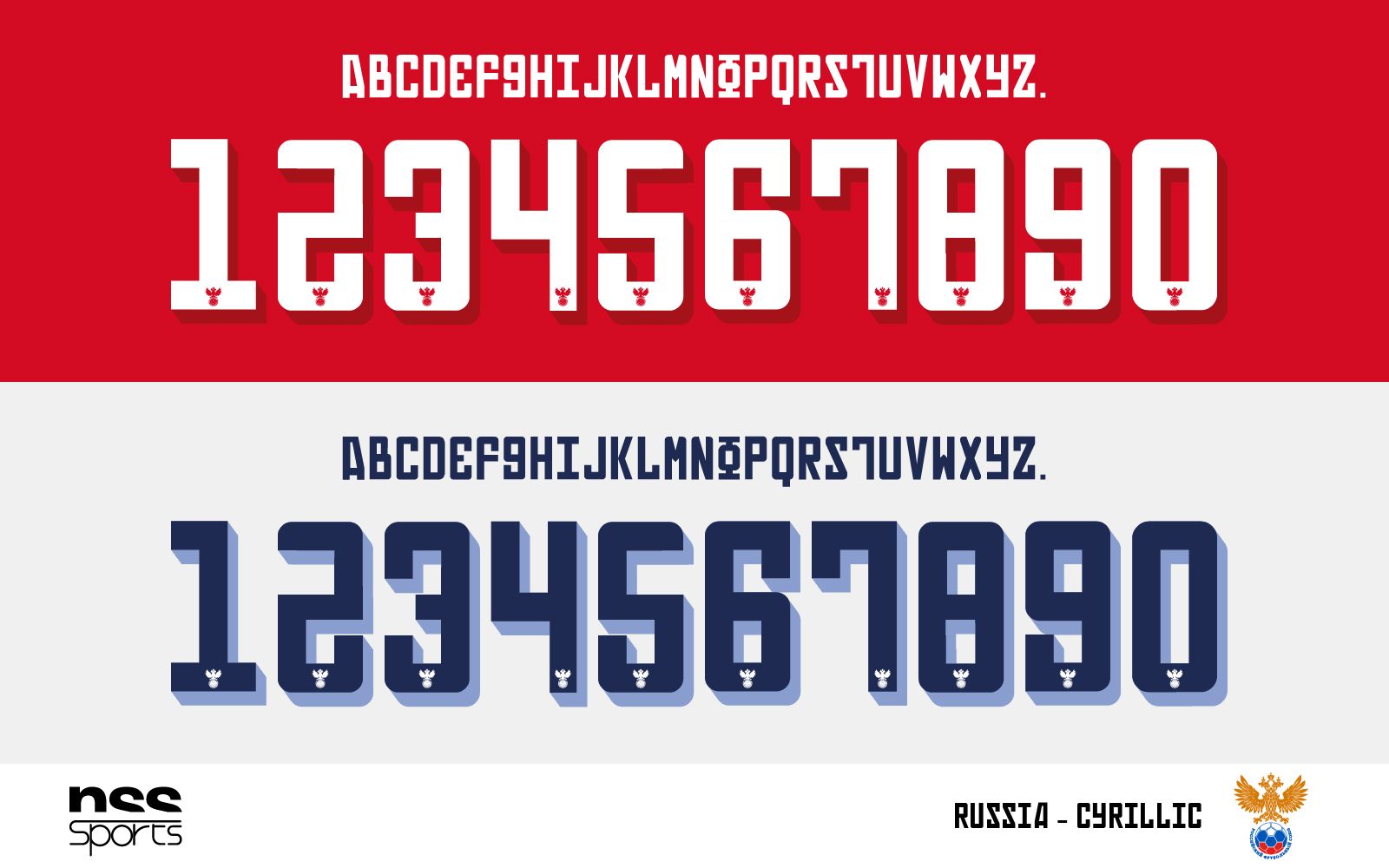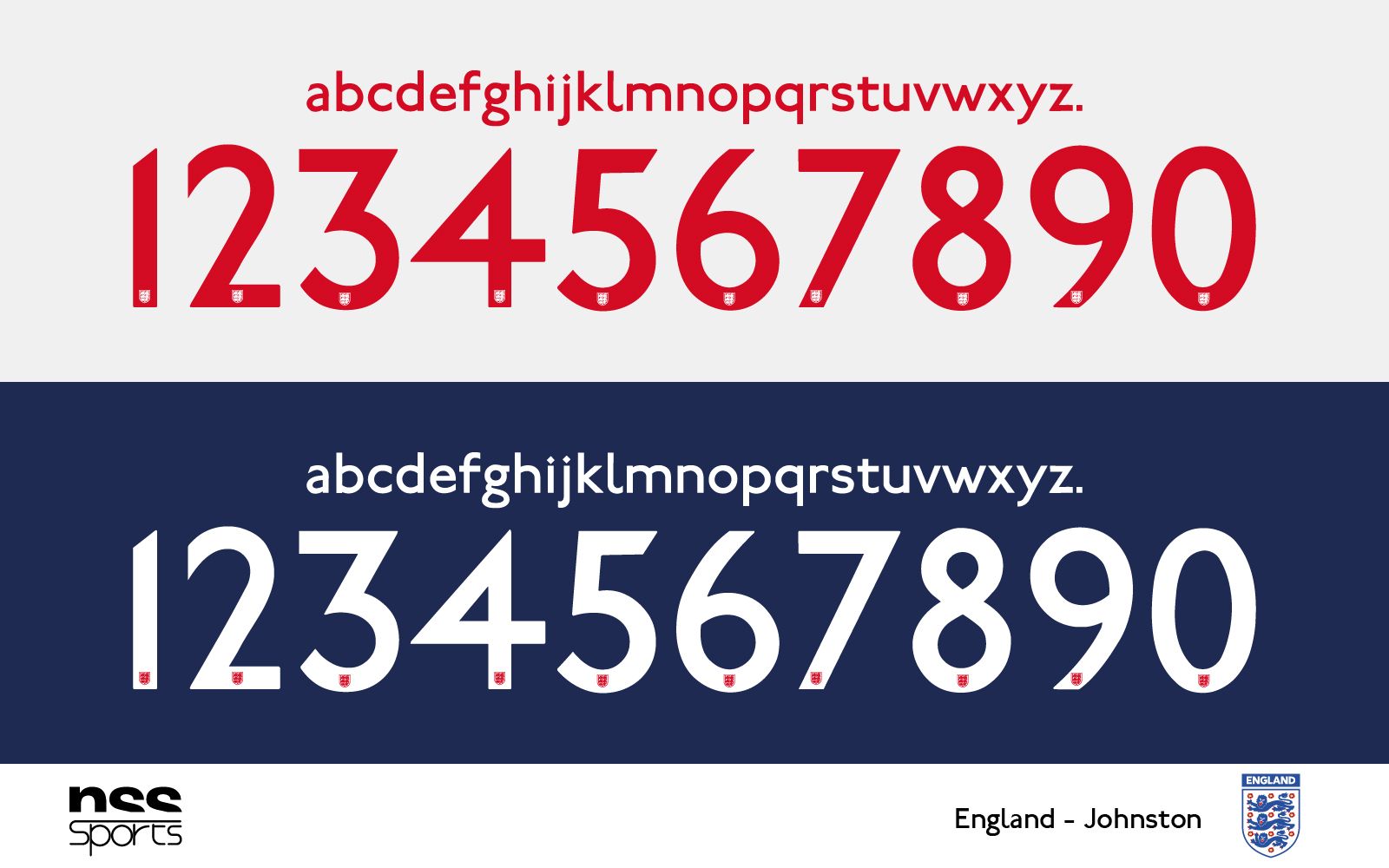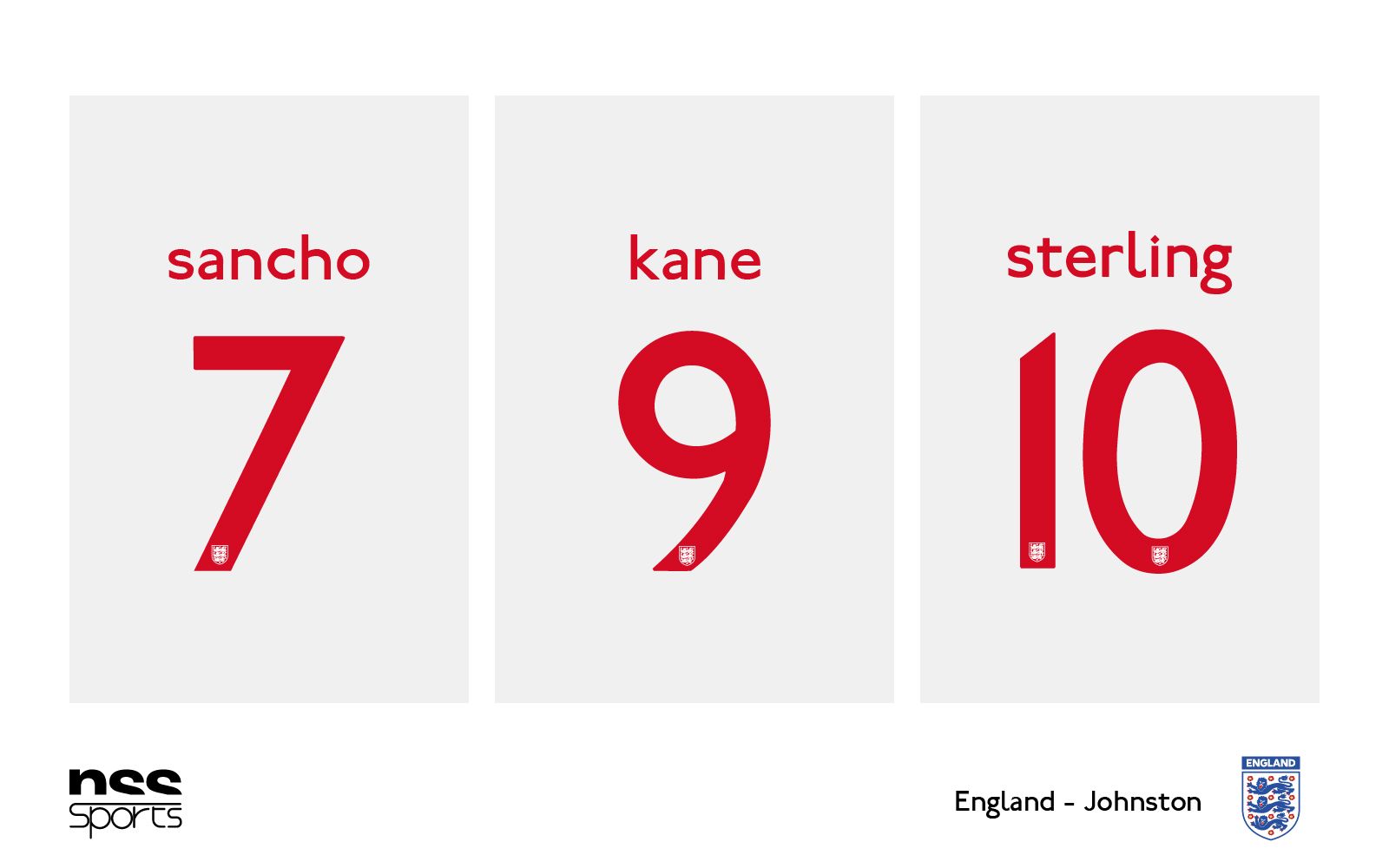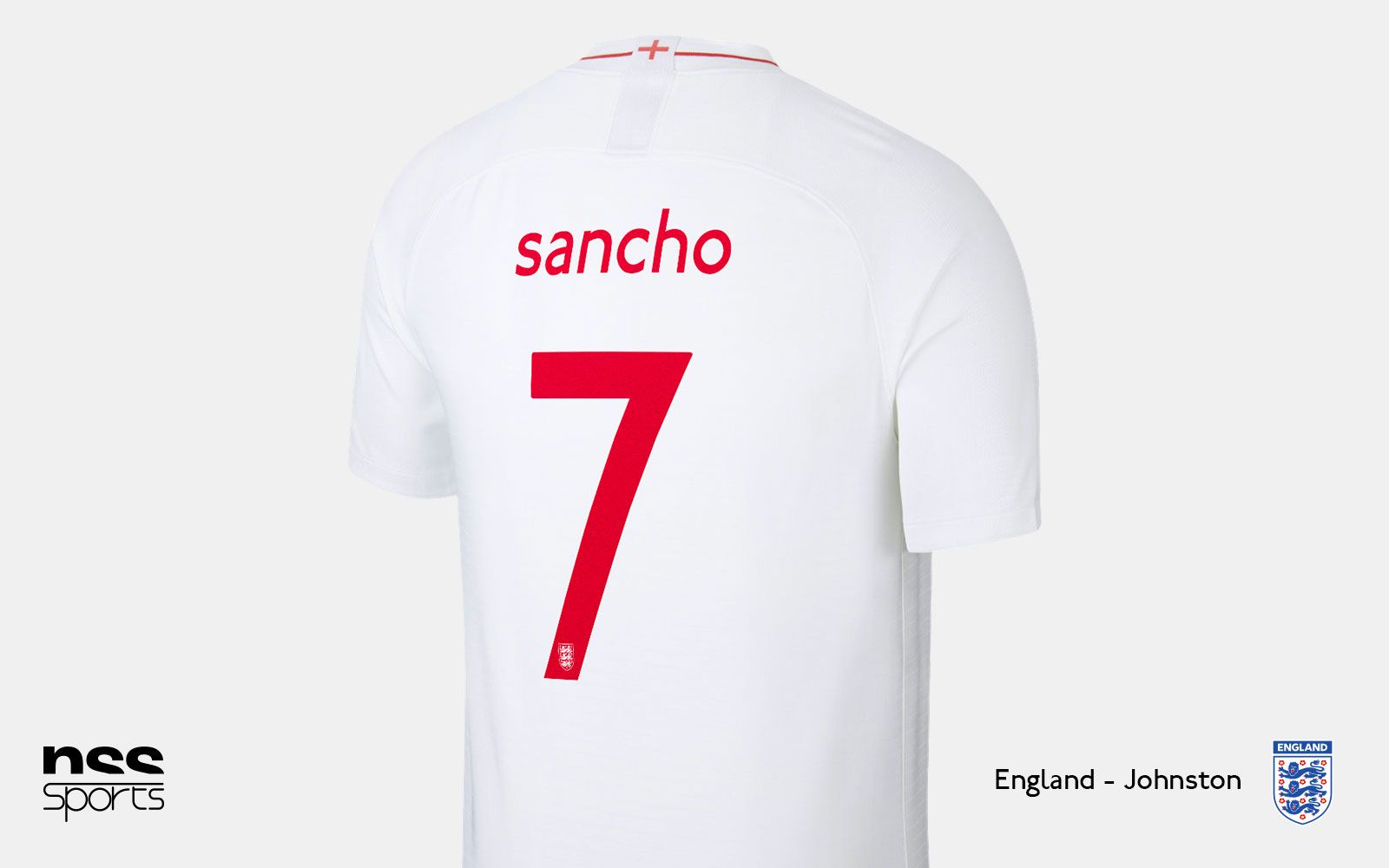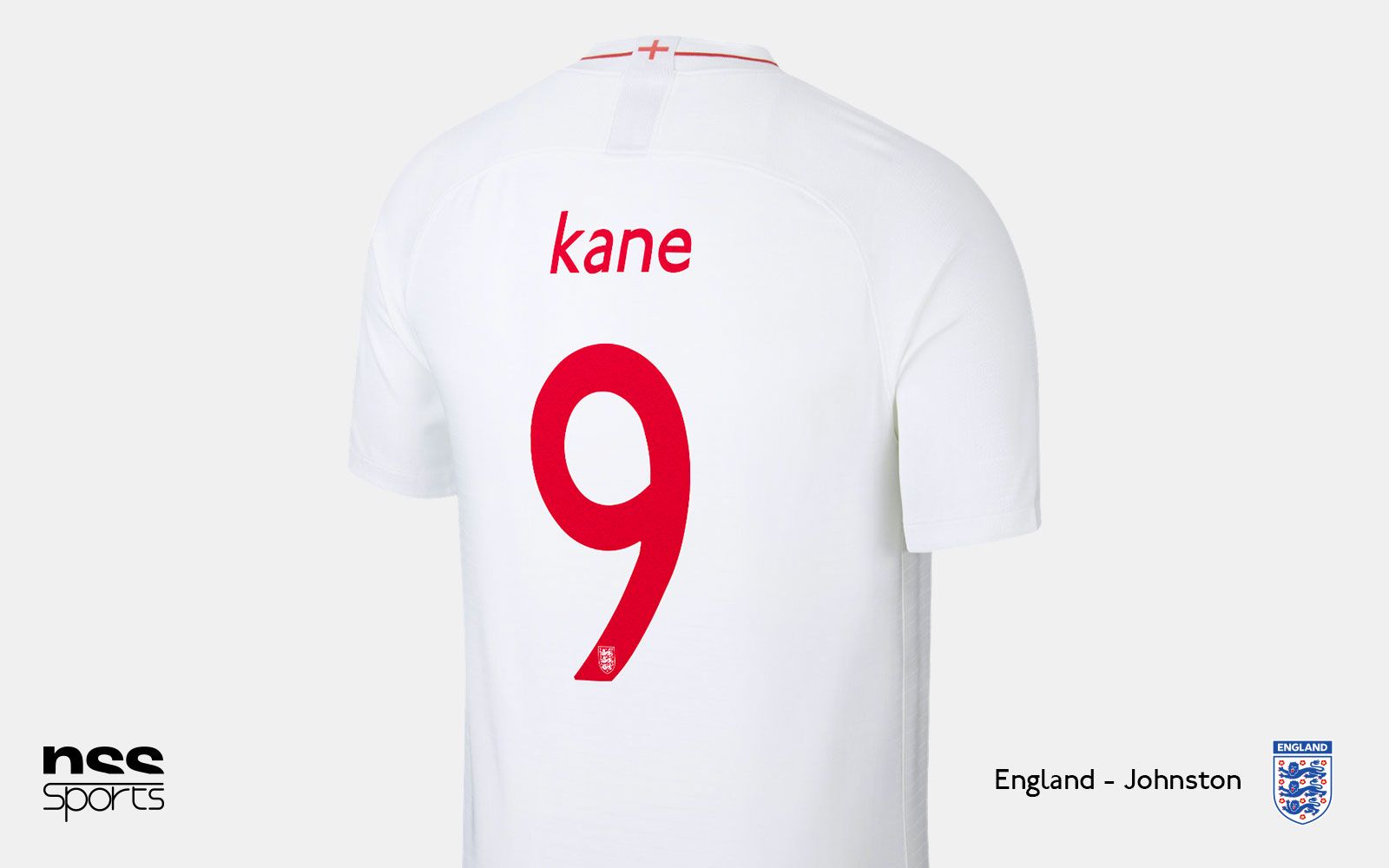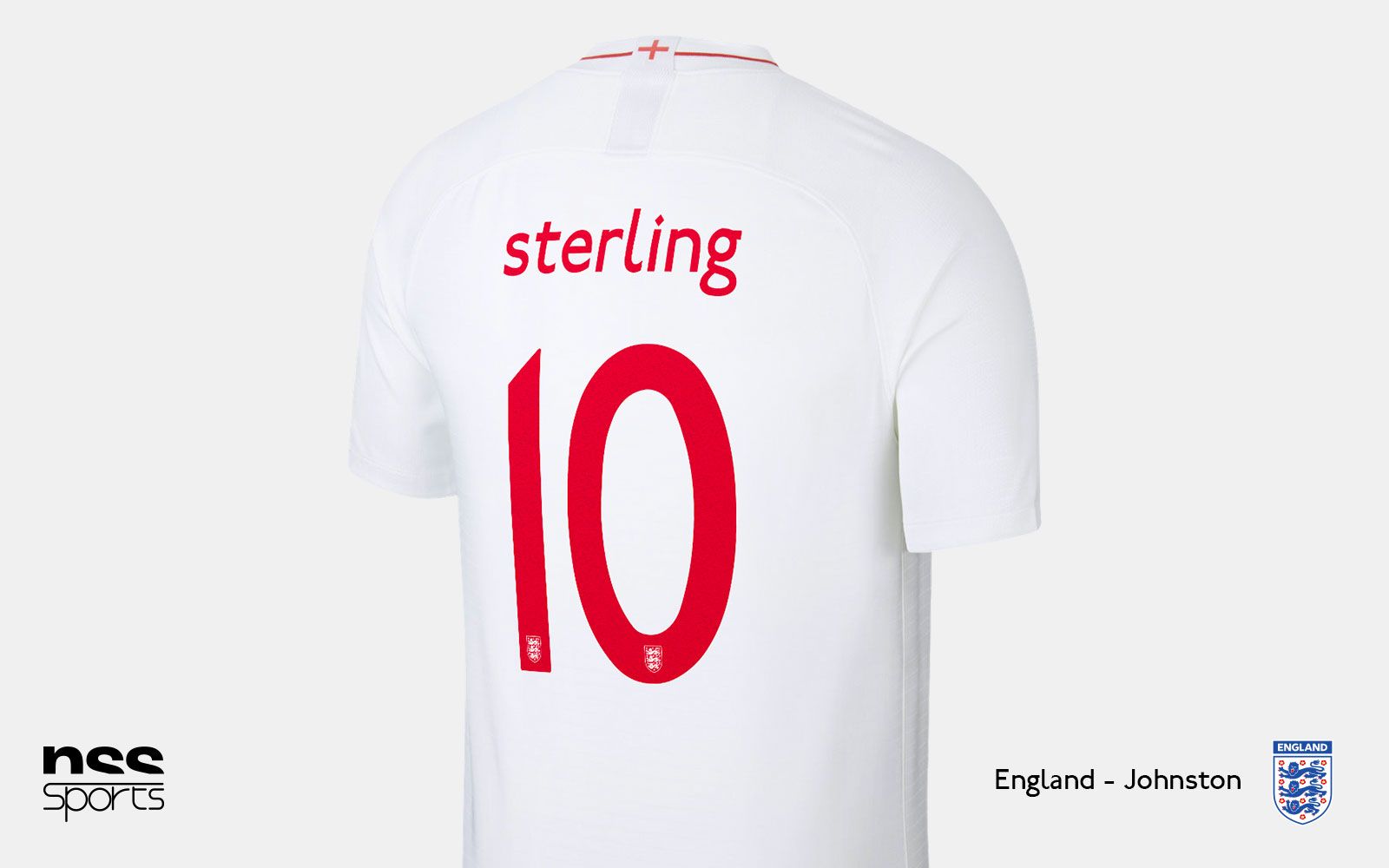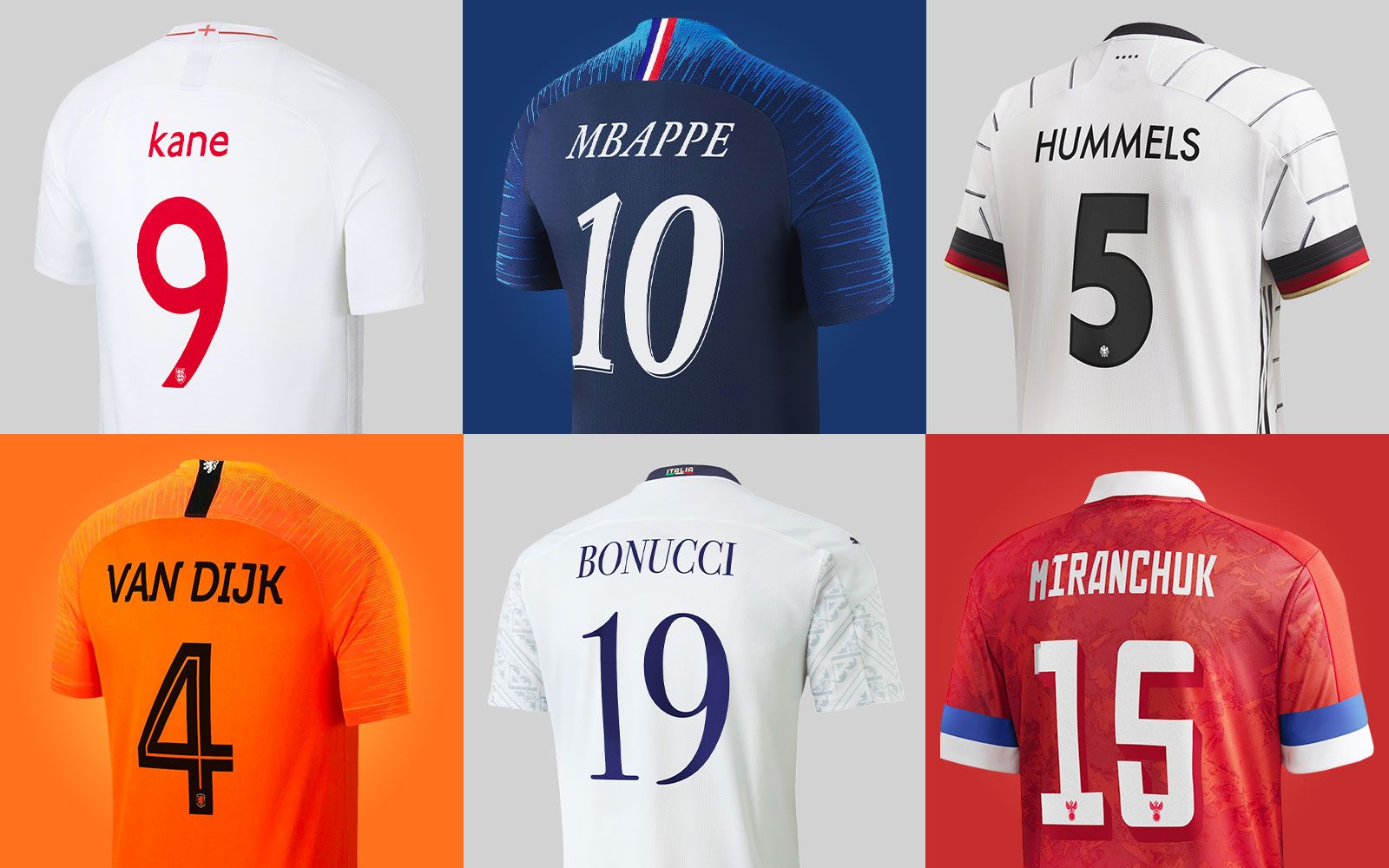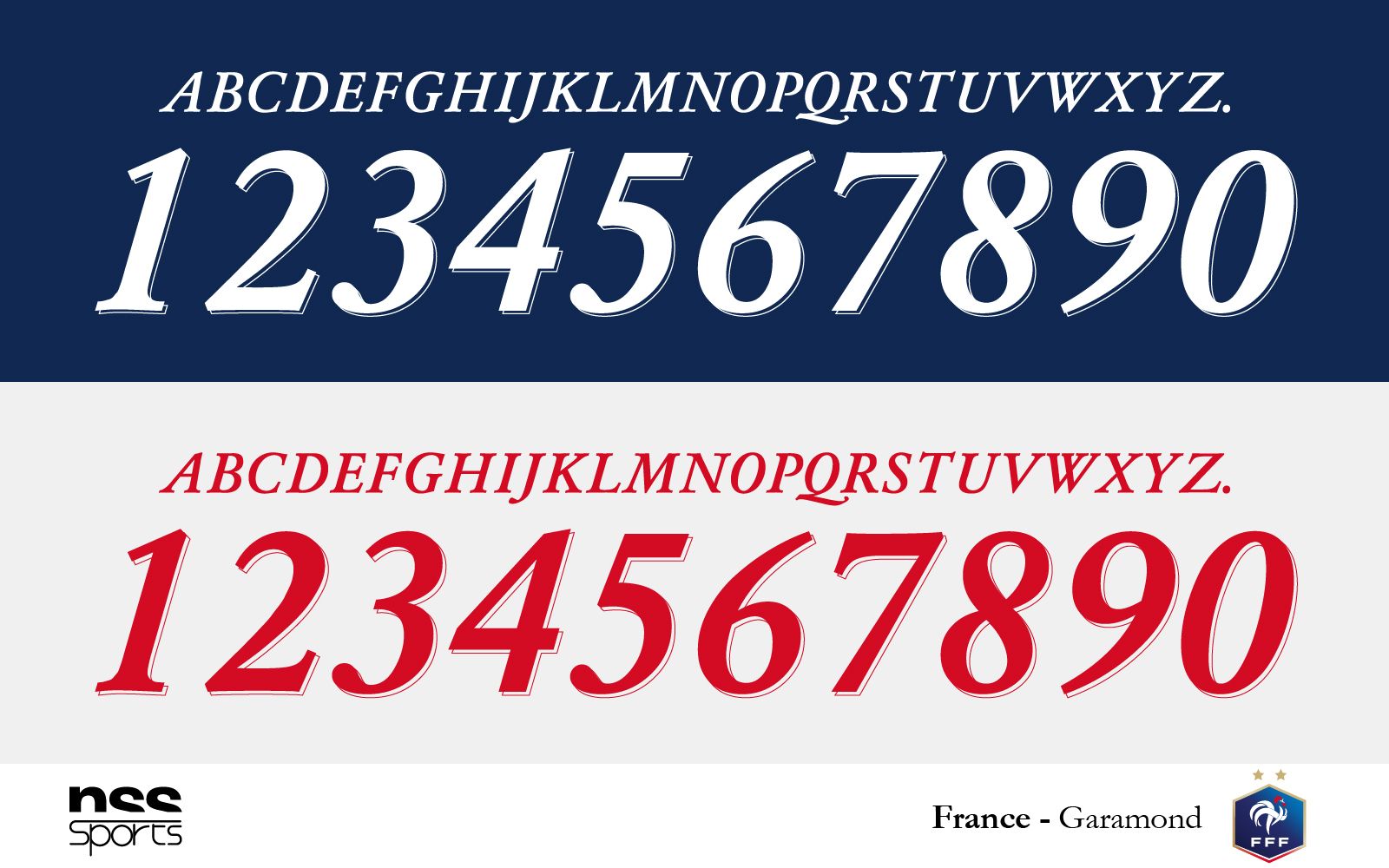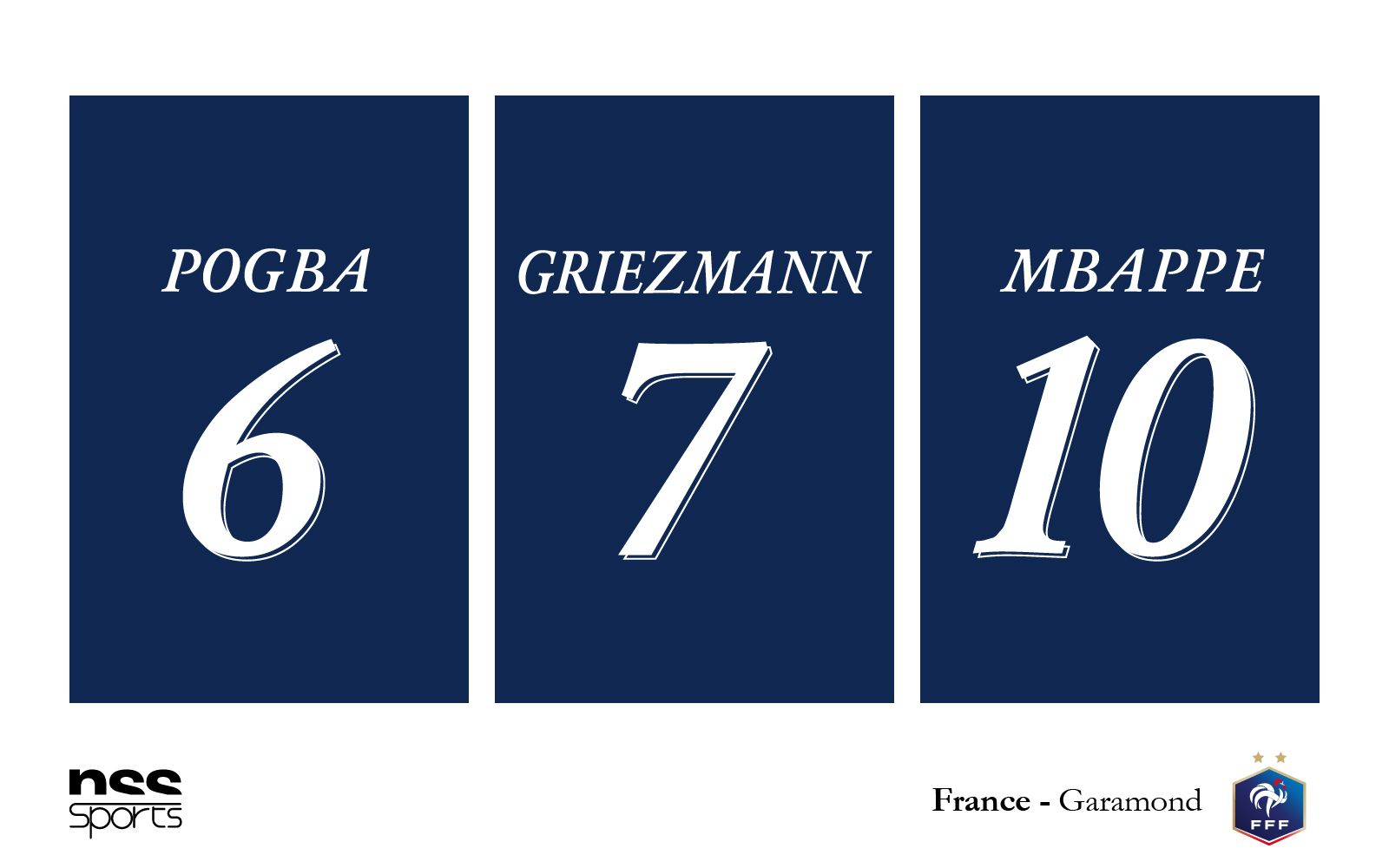
Euro 2020 teams' jerseys with national typeface Bodoni for Italy, Futura for Germany, Johnston for England
During the last international break, the first jerseys of some of the Euro 2020 national team were revealed, including the new Spain's, Belgium's and Germany's adidas jersey or the Italy’s PUMA one. adidas' new designs have not convinced, due to a too vague and weak concept inspired by art, too similar between each other. PUMA has instead shown to be in a historical moment of great creativity with respect to football jersey, presenting kits balanced in design and colors, with simple, solid but well-made ideas at the base, the first of which is the "Renaissance kit" of the Azzurri.
On the part of both brands, the choice of using a single typeface for all the teams wasn't convicing, limiting the expressive and artistic qualities of a decisive element within the jerseys, which occupies the entire back of the jersey and also appearing on the shorts. The only team for which an exception was made is Switzerland, for which PUMA opted for a very famous font, born in Zurich in 1957, an unusual one but consistent with the history of the nation: the Helvetica.
With the qualifying rounds already set up, we are waiting to see what the new Nike kits will look like. nss sports has decided to try and think about what the kits of Russia, England, Germany, Italy, Netherland and France would be like if fonts born inside their own borders were used. The effect is to recreate original kits, with more personality that can stand out in the field for the values they embody, giving back importance to the fonts, an element unjustly overlooked by brands and teams in recent seasons.
ENGLAND - Johnston
Created in 1916, the Johnston font is named after its creator Edward Johnston, who together with Eric Gill (creator of a very similar typeface like Gill Sans) designed an extremely modern alphabet for the time, different because it was far from the Grotesk-inspired fonts of those years.
The Johnston was commissioned by The Underground Group, becoming in effect the font of the British railway lines and later of the London underground, which still maintains the font in its "New Johnston" version for station names and directions.
There are different weights of the letters, the ITC Jonhston version for exemple, published in 1999. In 2002 an Italic variant was added while in 2008 the numbers 1 and 4 were restored to the original design, to which they are the graces have been removed.
FRANCE - Garamond
There's a huge list of fonts under the name Garamond, readjustments and small variations of the font designed by the French engraver Claude Garamond during the 16th century. Just as Johnston has a curious connection with transport, the Italian railways being one example. The font is in fact the one used by the Ferrovie dello Stato and until 1951 it also appeared on the license plates of Italian cars.
Garamond however is one of the most used fonts ever in the history of publishing, for its calligraphic style, revolutionary at the time compared to the gothic alphabets used in French engravings. Garamond has marked the history of printing and publishing for years, in particular for having been the character used by Aldo Manuzio, the greatest publisher of the Renaissance.
ITALY - Bodoni
Bodoni does not identify in particular a single paragraph but a family of slightly different versions of each other. The main detail of Bodoni is the contrast between thin lines and thicker profiles, which creates a rhythm in reading but in many cases creates some limits of readability.
Despite this "limit" the font born in Parma is one of the most used by publishing and printing on paper, thanks to its classic appearance and the precision with which the graces of the letters are made, which have made it one of the most already loved in the 1700s.
The Azzurra team used a font very similar to those of the Bodoni family, during the 2004 European Championships, when the gold of the numbers and letters contrasted with the blue of the shirt made by PUMA.
GERMANY - Futura
Probably one of the most popular fonts used by contemporary graphic designers. Since its presentation in 1933 at the fifth Milan Triennale, the character guarantees immediate success thanks to the essential style that best represented the ideas of the German Bauhaus school, thus moving away from contemporary sans-serif models. Its creator, the German Paul Renner, was successful thanks to the combination of classicism and modernity, as well as a great campaign to publicize the font - especially in the United States - which described it as "The typeface of our time".
Futura has had a very wide commercial use, becoming the official character of well-known companies and brands such as Supreme, IKEA, Volkswagen or Fox, but also in the film industry, appearing in many of the titles of Wes Anderson's films.
NETHERLAND - Museo
The Museum is a geometric font, a sans serif very readable and invented by the printer by the Dutch printer Jos Buivenga. The quality of this font is that of being perfectly studied in its proportions, so that it can be used and combined in all its dimensions. The serif of the letters are the distinctive element of this character, in particular that of the U that in the original idea of Buivenga had to remember the stem of a flower. Another peculiarity of the Museum is that of having the numbers both in upper and lower case, as well as a series of ligatures between the letters.